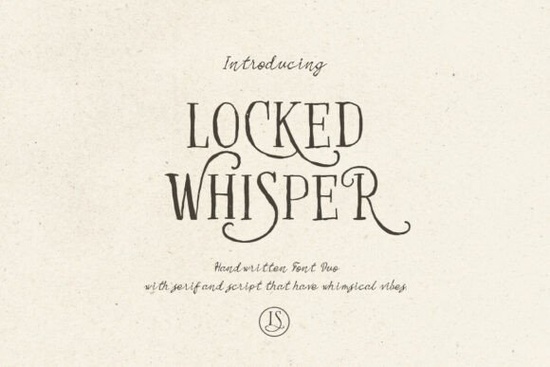
If you’ve been searching for a font that feels like it was pulled from the pages of a cherished love letter or an old poetry book, Locked Whisper Font might be exactly what your next project needs. It’s not loud or flashy instead, it carries a quiet charm, like ink brushed gently across yellowed parchment. The duo includes a delicate serif and a flowing handwritten script that pair beautifully together, letting you mix structure with soft spontaneity.
This isn’t just another script font. What makes Locked Whisper special is how naturally it fits into projects that need warmth and nostalgia think wedding invitations, boutique packaging, editorial layouts, or even branding for small businesses that want to feel personal and poetic. If you’ve used fonts like Amazing Teacher or Spicy Chicken before, you’ll notice Locked Whisper sits in a different emotional space less playful, more tender.
What kinds of projects does this font work best for?
Because of its dual-style design, Locked Whisper adapts well across different uses:
- Wedding stationery Pair the serif for names and dates with the script for vows or quotes.
- Packaging for handmade goods Soaps, candles, teas, or artisanal foods benefit from its gentle, human touch.
- Editorial design Magazine spreads, zines, or blog headers where you want to evoke mood over minimalism.
- Personal branding Especially if you’re a photographer, poet, florist, or small-batch creator wanting to feel intimate and authentic.
It also layers nicely with clean sans-serifs like Montserrat if you need contrast without losing cohesion. And if you’re building a collection of hand-drawn typefaces, consider adding it alongside favorites like those in the handwritten font collection it complements rather than competes.
How do I use both styles together without clashing?
The key is hierarchy. Use the serif version for titles or structured text (like addresses or product names), and let the script handle accents short quotes, taglines, or decorative phrases. For example:
- Serif: “Emily & James // June 8, 2025”
- Script: “forever begins here” beneath it
You can also adjust tracking slightly on the script to give it more breathing room, especially in longer lines. Avoid using both styles at the same size side-by-side let one lead visually. If you’re working with rhinestone templates or heat transfer designs, try pairing it with something like RS01 Cursiva for embellished pieces that still feel organic.
Is this font beginner-friendly for non-designers?
Absolutely. Even if you’re new to typography, Locked Whisper is forgiving. The characters are well-spaced, and the OpenType features (like stylistic alternates) are subtle enough that you don’t need advanced software to make it look good. Most users find they get beautiful results right out of the box in Canva, Silhouette Studio, or even basic word processors.
That said, if you’re diving into ligatures or contextual alternates, there’s room to explore but no pressure. You don’t need to tweak anything to make it shine.
If you’re creating bilingual invites or labels, test your specific phrases first some accented characters may vary slightly in weight or flow compared to the core alphabet, but nothing jarring.
Quick checklist before you start designing:
- Install both font files (.otf or .ttf) so you can toggle between serif and script.
- Use the script sparingly it’s meant to accent, not overwhelm.
- Pair with neutral backgrounds or textures (think linen, watercolor washes, soft gradients).
- Avoid neon colors or harsh contrasts muted tones enhance its vintage, romantic vibe.
Whether you’re crafting your own wedding suite, designing labels for your Etsy shop, or just playing with mood boards for fun, Locked Whisper adds a whisper of soul to your work not a shout. Sometimes, that’s exactly what a design needs.